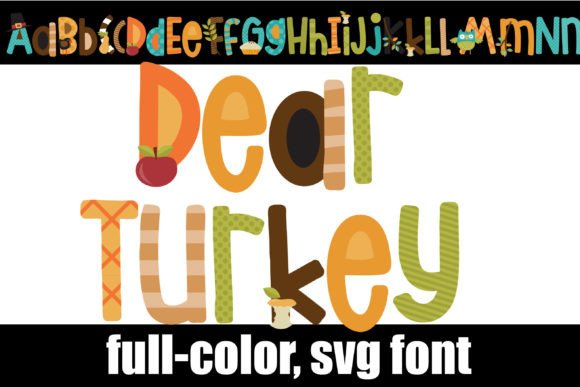
Dear Turkey Font: A Deliciously Colorful Addition to Your Thanksgiving Designs
As the holiday season approaches, designers and crafters are on the lookout for unique and festive elements to add to their Thanksgiving-themed projects. If you’re searching for a font that captures the warmth and coziness of the season, look no further than the Dear Turkey Font. This full-color font is a game-changer for anyone looking to create stunning home decorations, digital designs, cards, and more.
What Makes Dear Turkey Font So Special?
Dear Turkey Font is a one-of-a-kind, full-color font that boasts a beautiful Thanksgiving color palette. The font features a wide range of elements reminiscent of a delicious Thanksgiving dinner, making it the perfect addition to your holiday designs. Whether you’re creating a festive banner, a heartfelt card, or a cozy home decoration, this font is sure to impress.
One of the standout features of Dear Turkey Font is its alt case option. Each letter is available in a different color, allowing you to mix and match to create unique and eye-catching designs. This feature opens up a world of creative possibilities, from colorful headings to whimsical illustrations.
Example of using alt case to create a colorful and playful design
Design Ideas to Get You Started
Now that you know more about Dear Turkey Font, it’s time to get creative! Here are some design ideas to get you started:
- Create a festive Thanksgiving banner to hang in your home or use as a social media header
- Design a set of colorful cards to send to friends and family
- Make a beautiful and unique home decoration, such as a Thanksgiving-themed pillow or wall art
- Use the font to create a stunning digital design, such as a social media graphic or blog header
Example of using Dear Turkey Font to create a festive Thanksgiving banner
The Benefits of Using Dear Turkey Font
So why choose Dear Turkey Font for your Thanksgiving designs? Here are just a few benefits:
- Unique and festive: This font is sure to stand out in your designs and add a touch of holiday cheer
- Versatile: Use it for a wide range of projects, from digital designs to home decorations